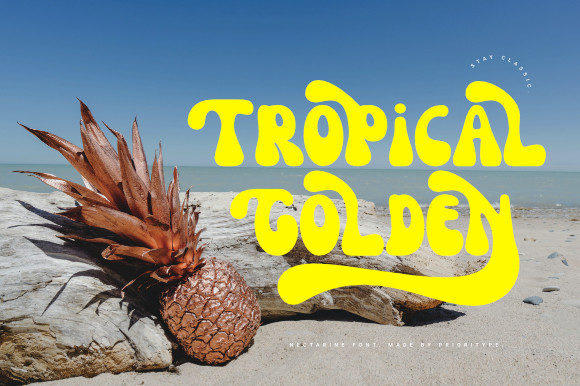
Nectarine Font
Nectarine is a cool and retro styled display font. This font is PUA encoded which means you can access all glyphs and swashes with ease! Add it confidently to your favorite creations and let yourself be amazed by the outcome generated.